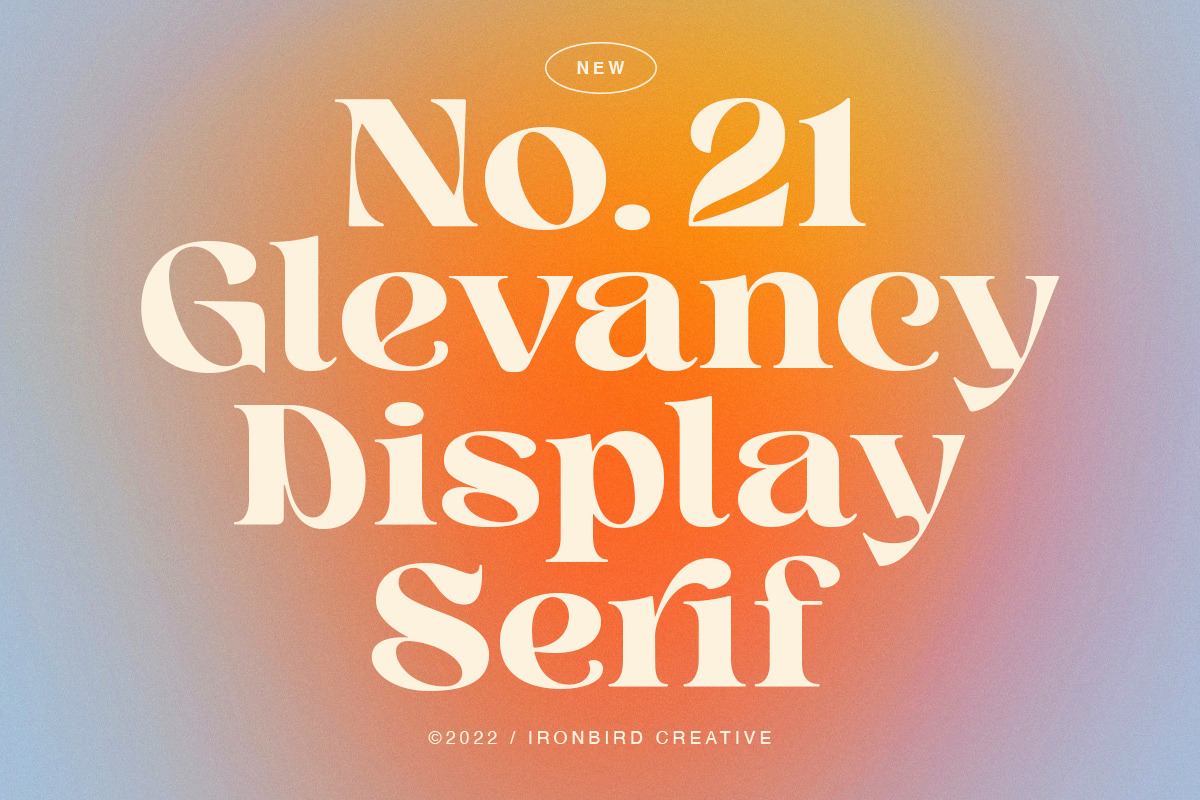
Glevancy - Display Serif Font is perfect for bold headline design, striking magazine layouts, commanding logo creation, impactful poster design, dramatic book covers, powerful advertising campaigns, authoritative business presentations, sophisticated editorial headlines, premium brand identities, distinguished signage systems, influential marketing materials, and commanding display typography projects.
Glevancy - Display Serif Font is exciting because it commands attention through its powerful display characteristics and sophisticated serif elegance that creates unforgettable visual impact while maintaining refined readability and professional authority. This commanding typeface features bold proportions with classical serif details that deliver maximum presence without sacrificing sophistication or elegance. The font's authoritative character ensures every headline feels important and every brand message appears distinguished and credible.
Glevancy - Display Serif Font includes comprehensive font families: Regular Display Style, Bold Commanding Weight, Light Elegant Touch, Medium Balanced Format, Italic Dynamic Slant, Condensed Impactful Width, Extended Prestigious Format, Ultra Bold Statement, Thin Sophisticated Version, and Special Display Symbols, providing complete solutions for powerful display typography and authoritative brand communications.
This commanding typography solution transforms ordinary headlines into powerful visual statements through its sophisticated display aesthetic and authoritative design presence. Glevancy - Display Serif Font Free Download enables designers and bold brands to access premium display serif typography that instantly adds authority, sophistication, and commanding presence to any creative project. The font's meticulously engineered proportions ensure maximum impact while maintaining elegant readability and distinctive display character.
Editorial publishers, luxury brands, and authoritative businesses trust Glevancy - Display Serif Font for its ability to communicate power, sophistication, and commanding presence to audiences seeking authoritative information and premium brand experiences. The typeface's robust construction performs exceptionally well across various applications, from intimate premium communications to large-scale commanding displays. Its extensive character support includes multilingual capabilities and display design elements that enhance powerful brand presentations.
The design excellence behind Glevancy - Display Serif Font emphasizes the perfect balance between commanding presence and sophisticated elegance, creating typography that delivers authority without compromising refinement or professional appeal. This power-focused approach creates a font that feels genuinely authoritative while maintaining contemporary sophistication across different display contexts and commanding brand expressions.
Whether creating powerful brand identities, commanding editorial materials, or authoritative marketing campaigns, this display serif delivers exceptional results that demand attention and convey sophisticated authority. Download Glevancy - Display Serif Font today and discover how premium display serif typography can transform your design projects into commanding expressions of authority, sophistication, and the powerful presence that defines influential brands and impactful communications.